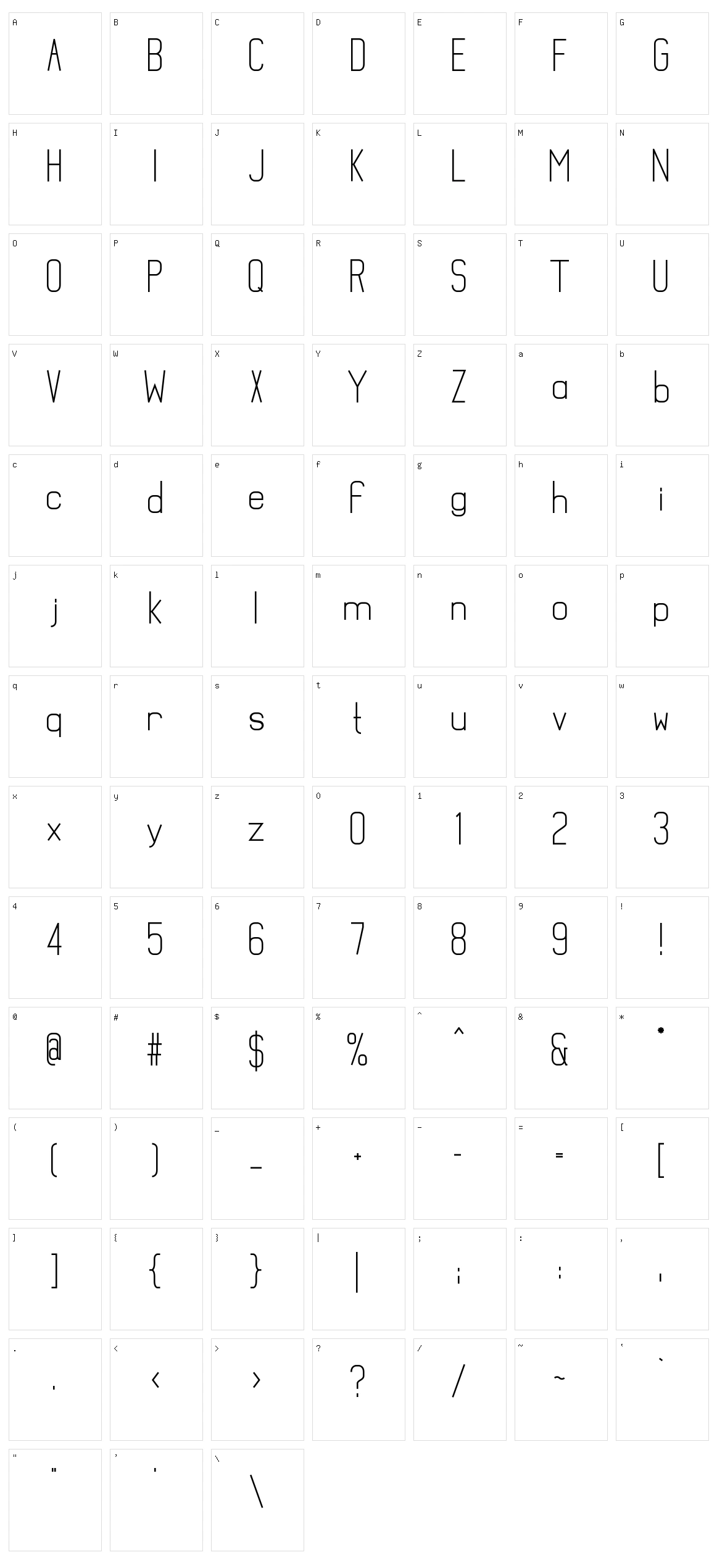
The free font Mathematical is carefully designed by Nathan Thomson, showcasing a thoughtful balance of creativity and usability and falls under the Sans serif font style. When you download the ZIP file, it contains only 45.45 KB of font files, making it lightweight and quick to download. Please review the license details below to understand permitted usage and distribution rights. If license information is not available, we recommend using this font for personal projects only or contacting the author directly for commercial usage permissions.
This font was made by Nathan Thomson.